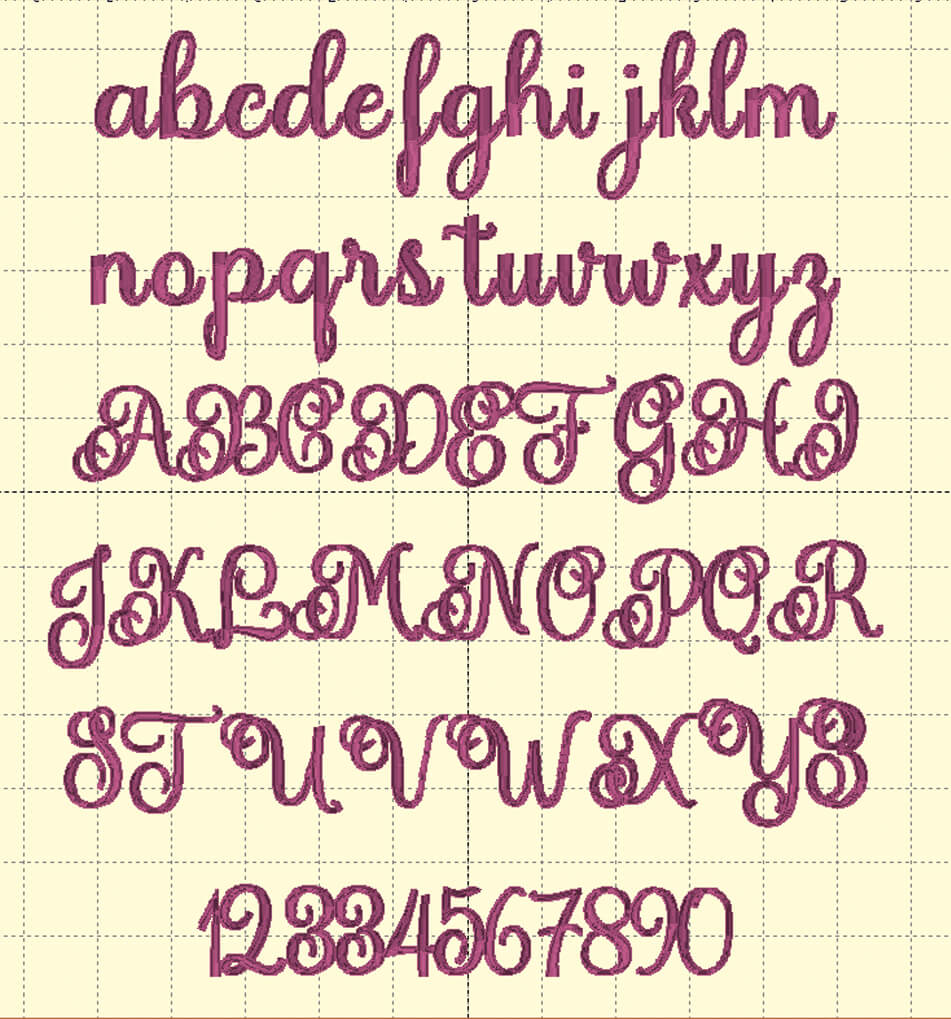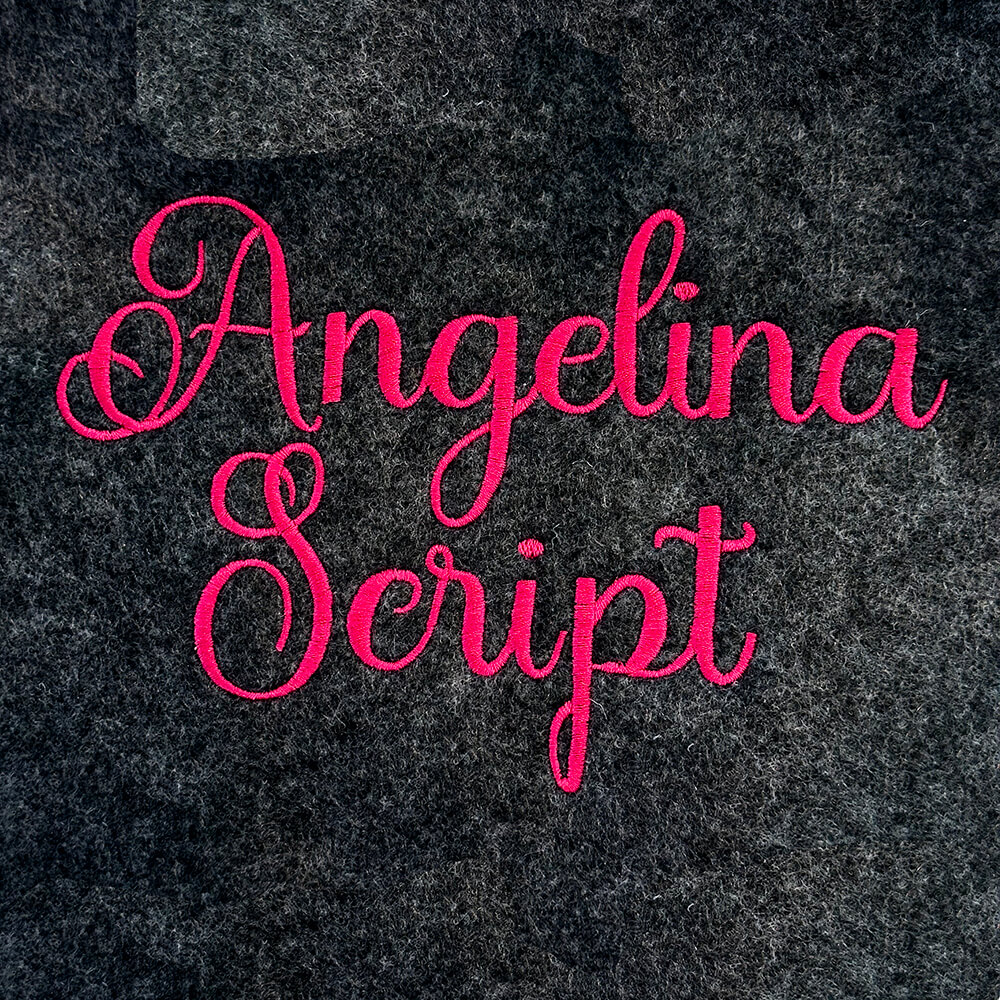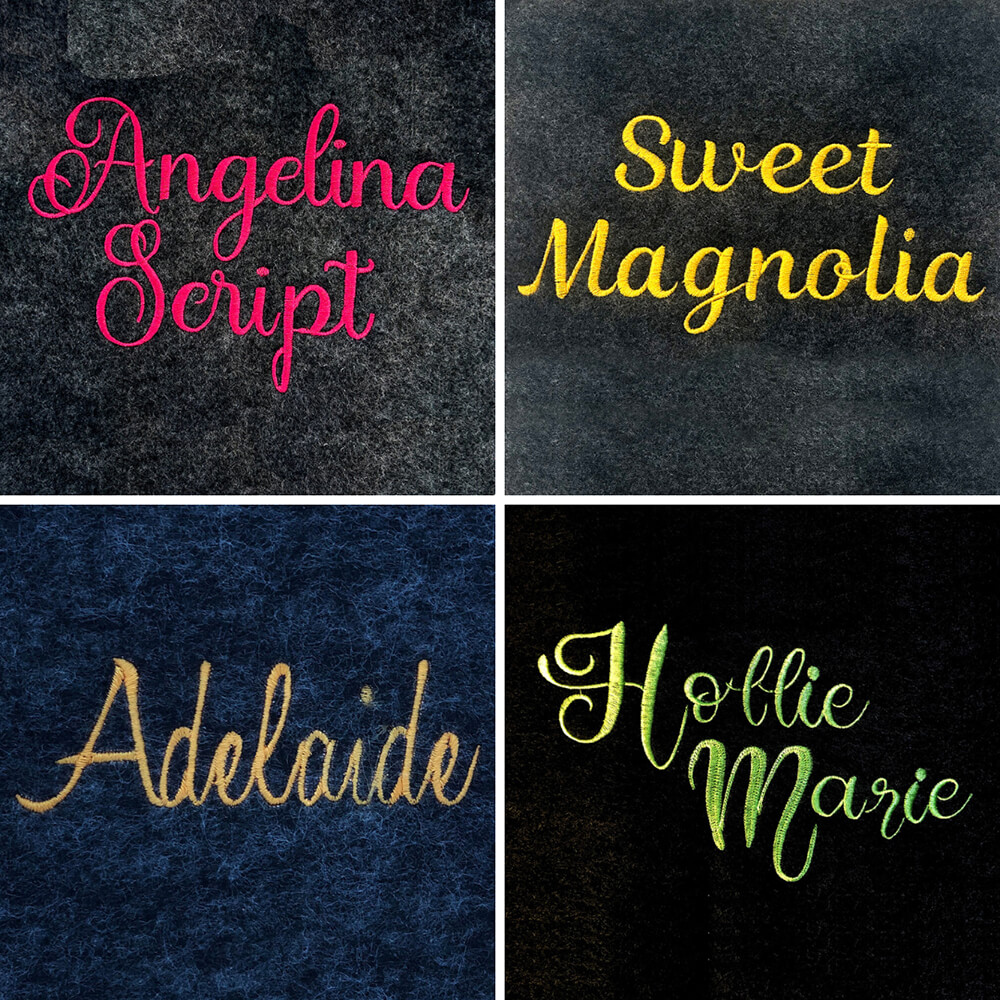
Classic Script Embroidery Font Four Pack
Four elegant, vintage-inspired script embroidery fonts designed to stitch smoothly with clean detailing in a variety of sizes as well as BX format.
These include: